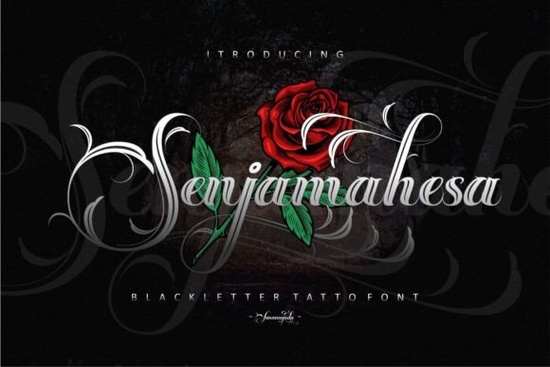
If you're looking for a distinctive typeface that blends organic inspiration with bold visual character, the Senjamahesa Font might be exactly what your next project needs. Designed with unusual shapes drawn from floral and plant forms, this font stands out without sacrificing readability making it especially useful for creative professionals who want something memorable but functional.
Unlike traditional script or display fonts, Senjamahesa carries an almost botanical rhythm in its letterforms. Curves mimic petals, stems, and tendrils, giving each character a handcrafted, living quality. That makes it particularly well-suited for applications where personality matters: think band logos, boutique shop branding, tattoo flash sheets, or even apparel designs for nature-inspired fashion lines.
Where does Senjamahesa work best?
This isn’t a font you’d use for body text in a novel but that’s not the point. Its strength lies in short, impactful uses:
- Tattoo artists appreciate how its organic flow translates well to skin, offering clients a design that feels both artistic and personal.
- Print-on-demand sellers can create standout t-shirt or sticker graphics that catch the eye without leaning on overused trends.
- Small business owners especially those in wellness, floristry, or artisanal goods find it adds a unique signature to packaging, signage, or social media visuals.
- Graphic designers working on music posters, zines, or indie brand identities often pair it with minimalist layouts to let the letterforms shine.
Because of its stylized structure, Senjamahesa pairs well with clean sans-serifs or neutral serif fonts when you need contrast. Avoid stacking it with other ornate typefaces its details deserve breathing room.
How does it compare to other blackletter or decorative fonts?
While it shares some visual drama with classic blackletter styles, Senjamahesa diverges by prioritizing natural motifs over gothic rigidity. If you’ve explored fonts like those in our medieval mystery collection, you’ll notice Senjamahesa feels less formal and more fluid. It’s less about historical replication and more about expressive interpretation.
That said, if you’re drawn to intricate lettering with a darkly romantic edge, browsing our Senjamahesa-specific category can help you see how it fits within broader decorative typographic traditions while still standing apart.
Also keep accessibility in mind: because of its detailed shapes, Senjamahesa may be hard to read at small sizes or on low-resolution screens. Reserve it for headlines, emblems, or large-format prints where its nuances can be appreciated.
If you’re after a font that feels alive, rooted in nature, and unafraid to be different, Senjamahesa offers a rare blend of artistry and versatility without trying too hard.